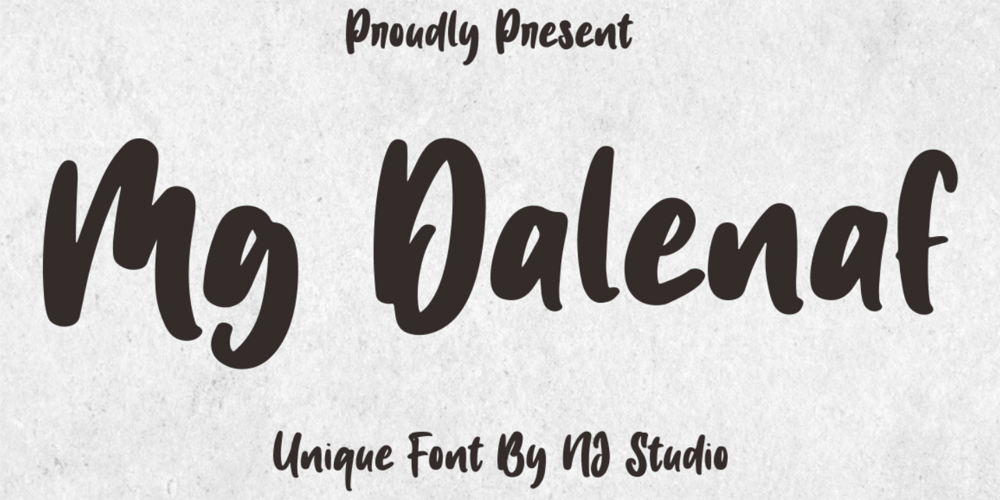
Mg Dalenaf Font Family was designed by Siti Nurjanah and published by NJ Studio. Mg Dalenaf contains 1 styles and family package options. Hi…Thank for your visit :)Mg Dalenaf a unique font. It features unique characters that will take your projects to the next level!This font is PUA code which means you can easily access all the glyphs and swashes that are full of love! It also features many special features including glyphs. font designs that are made for various vector designs, printing such as digital wedding blogs, online shops, social media, while printing can be used in the field of product clothing, accessories, bags, pins, logos, business cards, watermarks and many others …so it can make your product look cute and attractive, and also Multilingual support!!!Happy design …